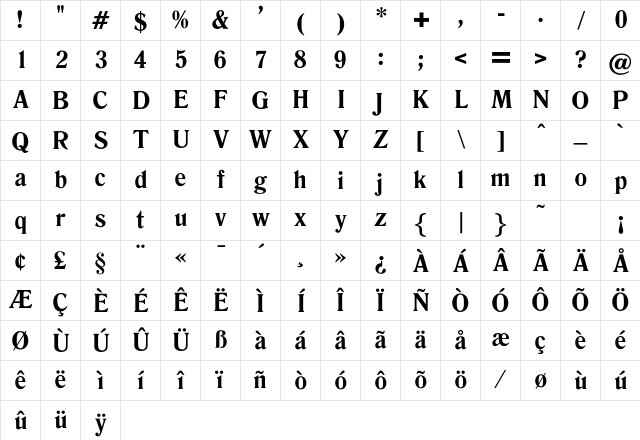
EmiliaBold Regular Free Font
EmiliaBold Regular
Design Context for EmiliaBold
EmiliaBold is a composed and adaptable typeface that performs quietly and consistently across a wide range of design contexts. Its bold stroke weight gives it real presence on the page.